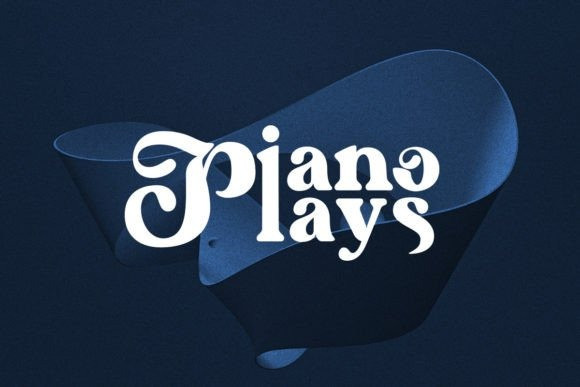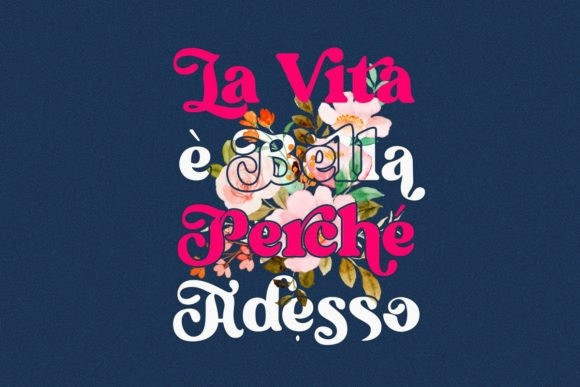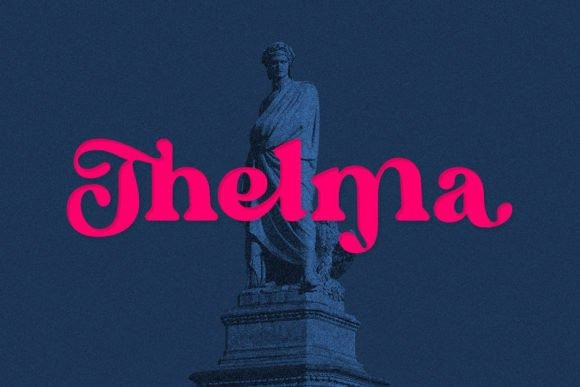
Thelma Font
Thelma Font – Classic Serif Font , created by Lettercorner Studio. Thelma is a traditional font for the classic serif type. A simple font, with a thin size, adds an elegant and classy impression. This typeface is perfect for an elegant logo, branding, travel promotion, layout magazine, beauty product, packaging product, quotes, or simply as a stylish text overlay to any background image.